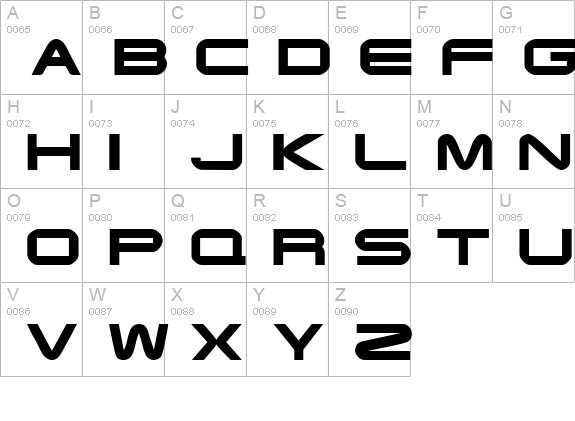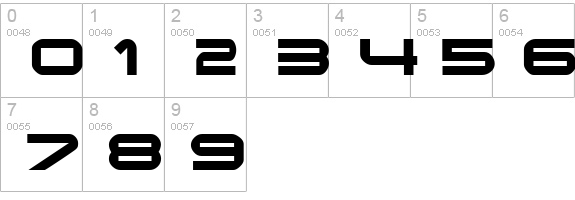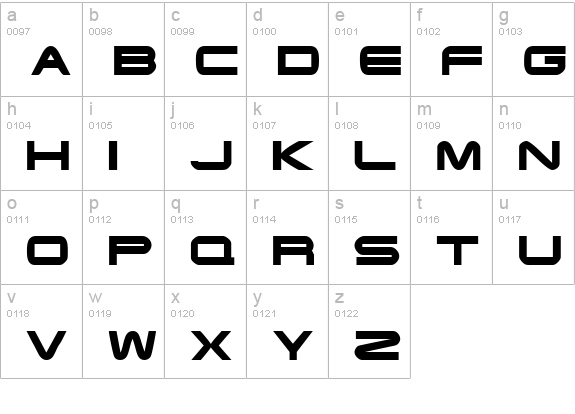
Endzone font is a modern and stylish typeface that exudes a sense of sophistication and professionalism. Its clean lines and bold lettering make it perfect for a wide range of design projects, from logos to posters to website headers. The sleek and contemporary design of Endzone font will instantly elevate any design it is used in, giving it a polished and professional look. What's even better is that Endzone font is completely free to download at FontsMarket.com. This means you can easily access this high-quality font without breaking the bank. Whether you are a graphic designer, a web developer, or a hobbyist looking to add a touch of elegance to your projects, Endzone font is a fantastic choice that won't cost you a penny. Download it today and see how it can take your designs to the next level!